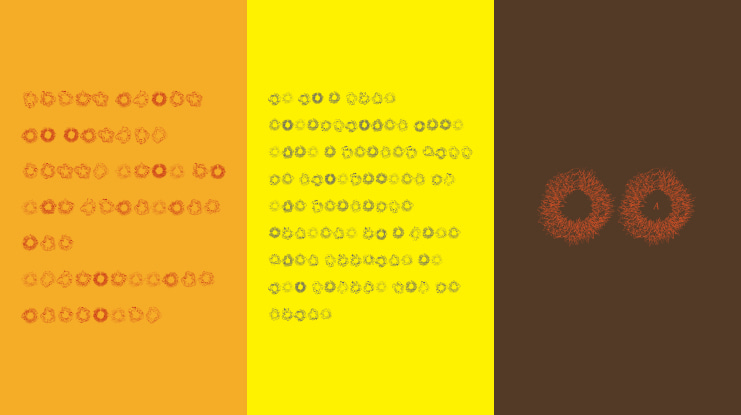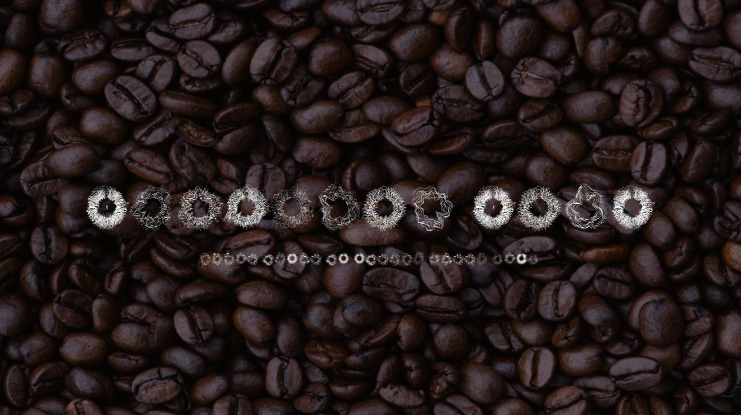
Spectral Sans Font
Vocalized letters.
Typing in all caps shows the character inside the audio spectrum and typing in lowercase shows only the audio spectrum of the letter.